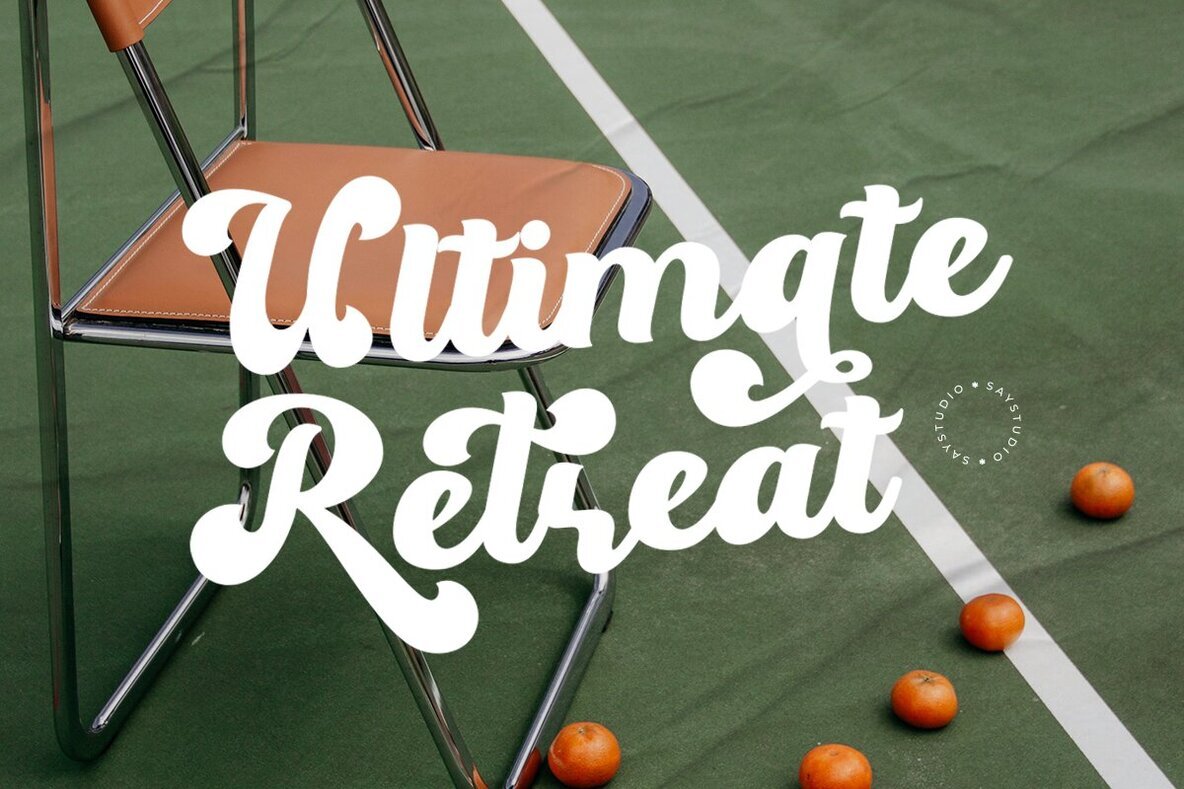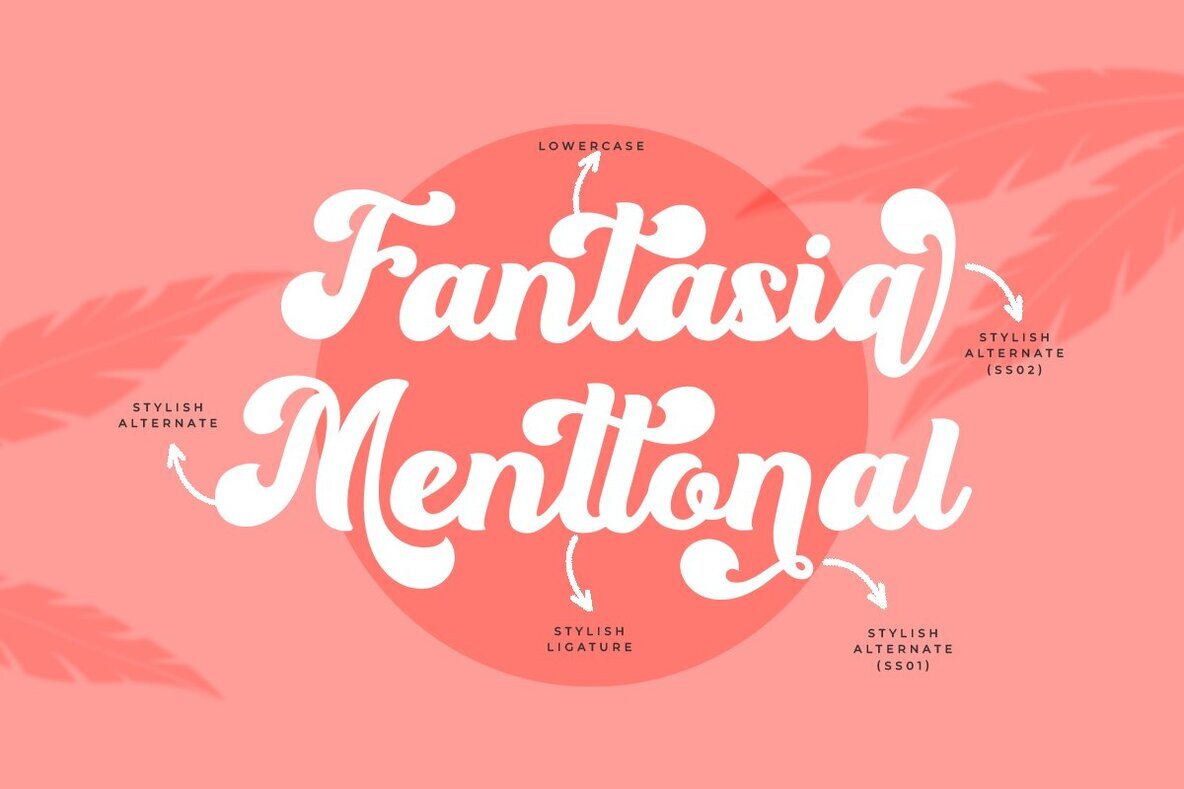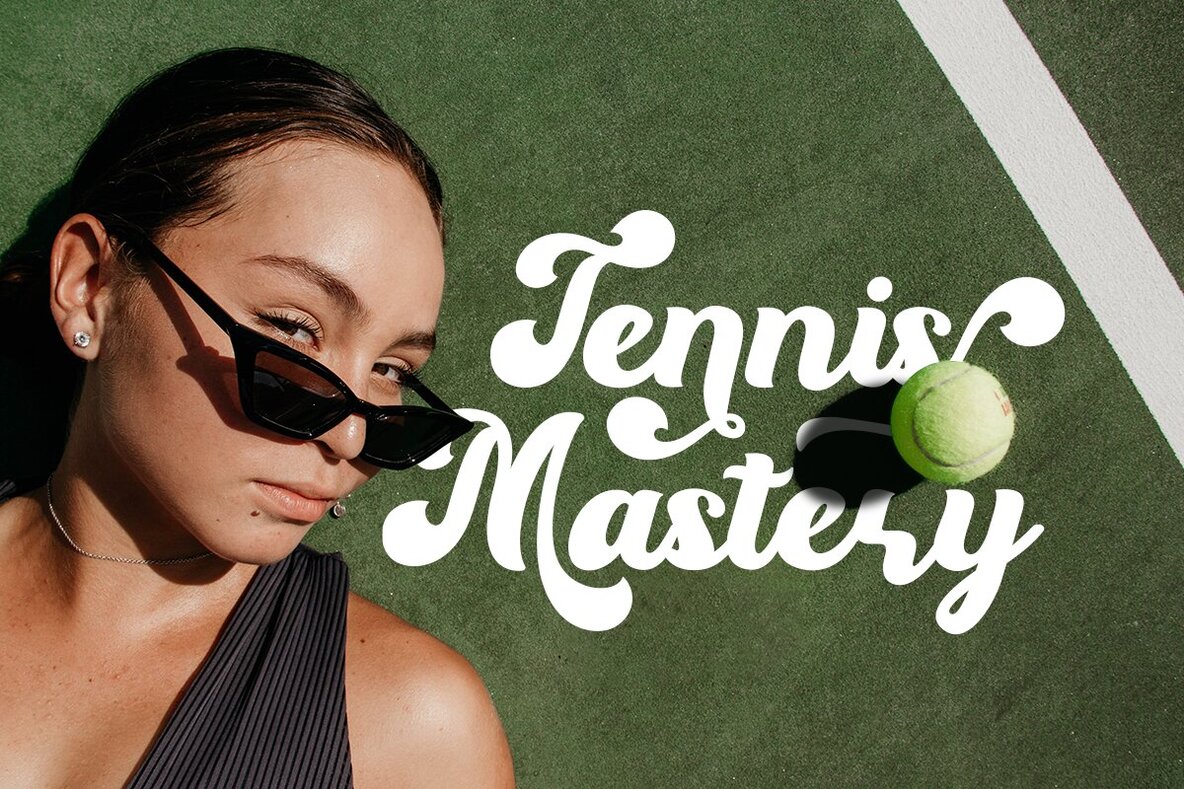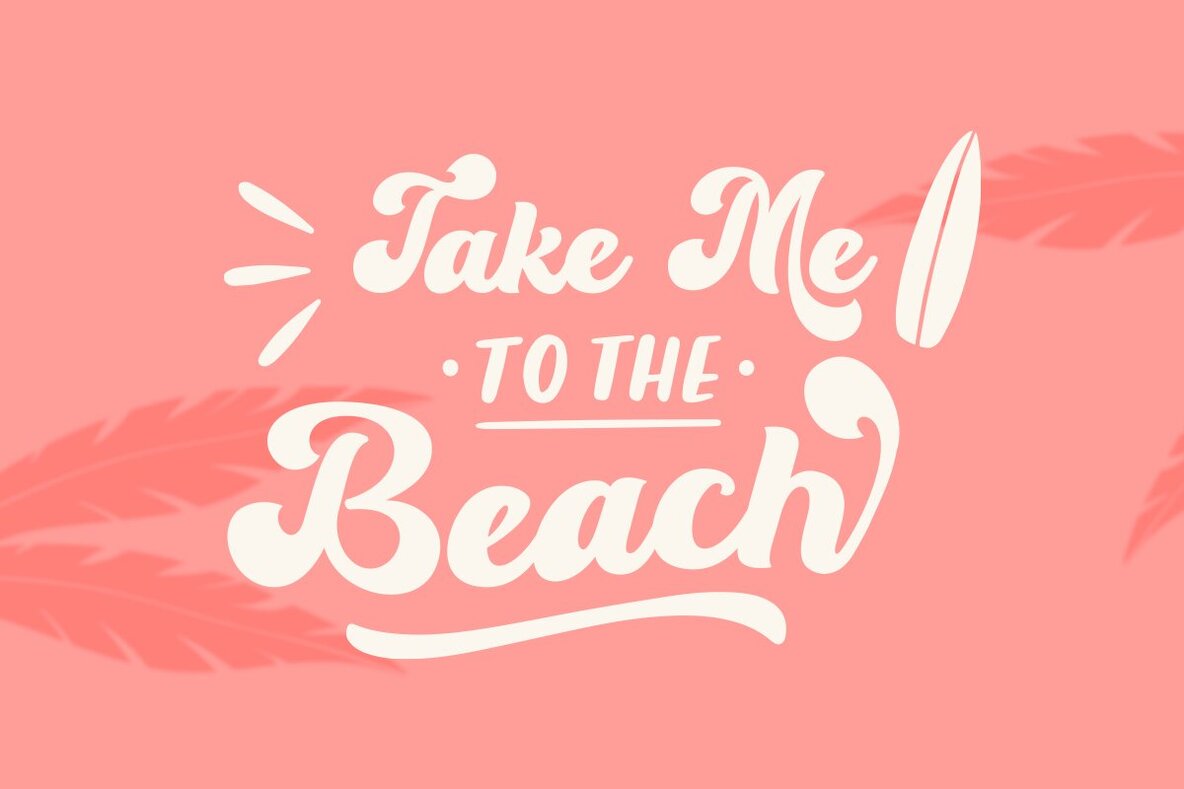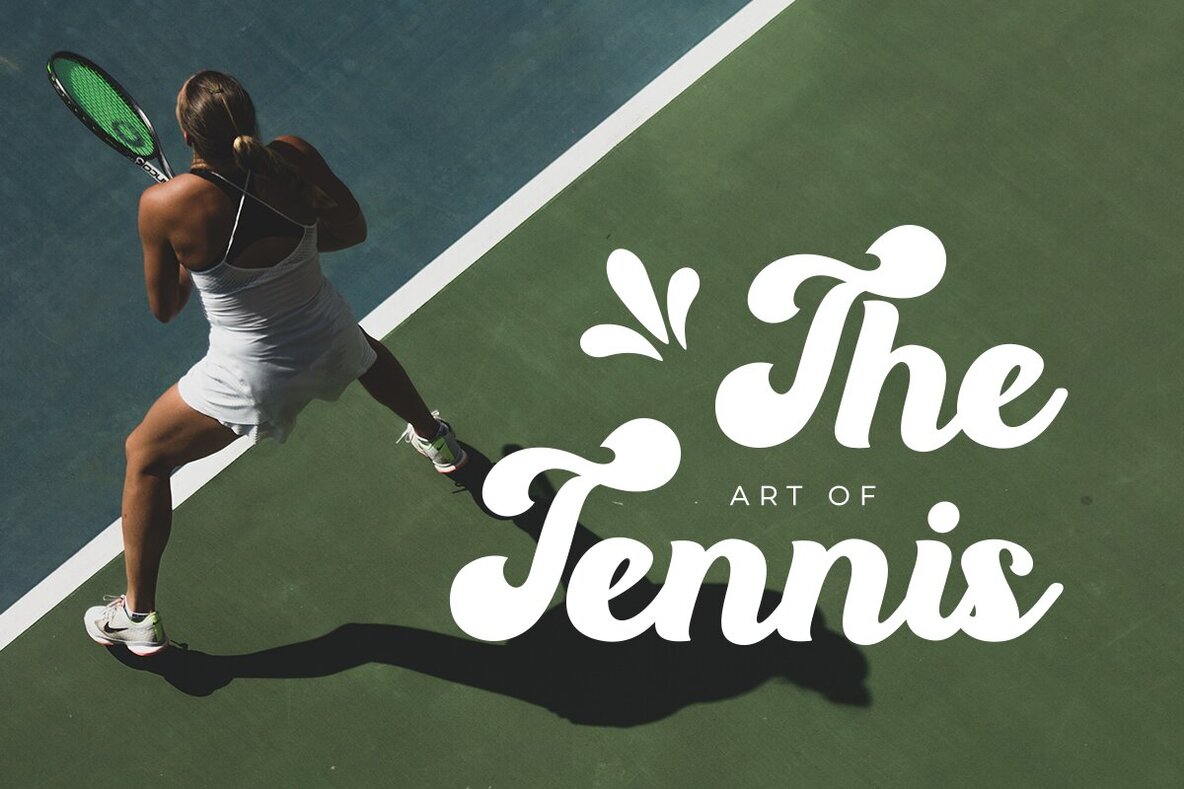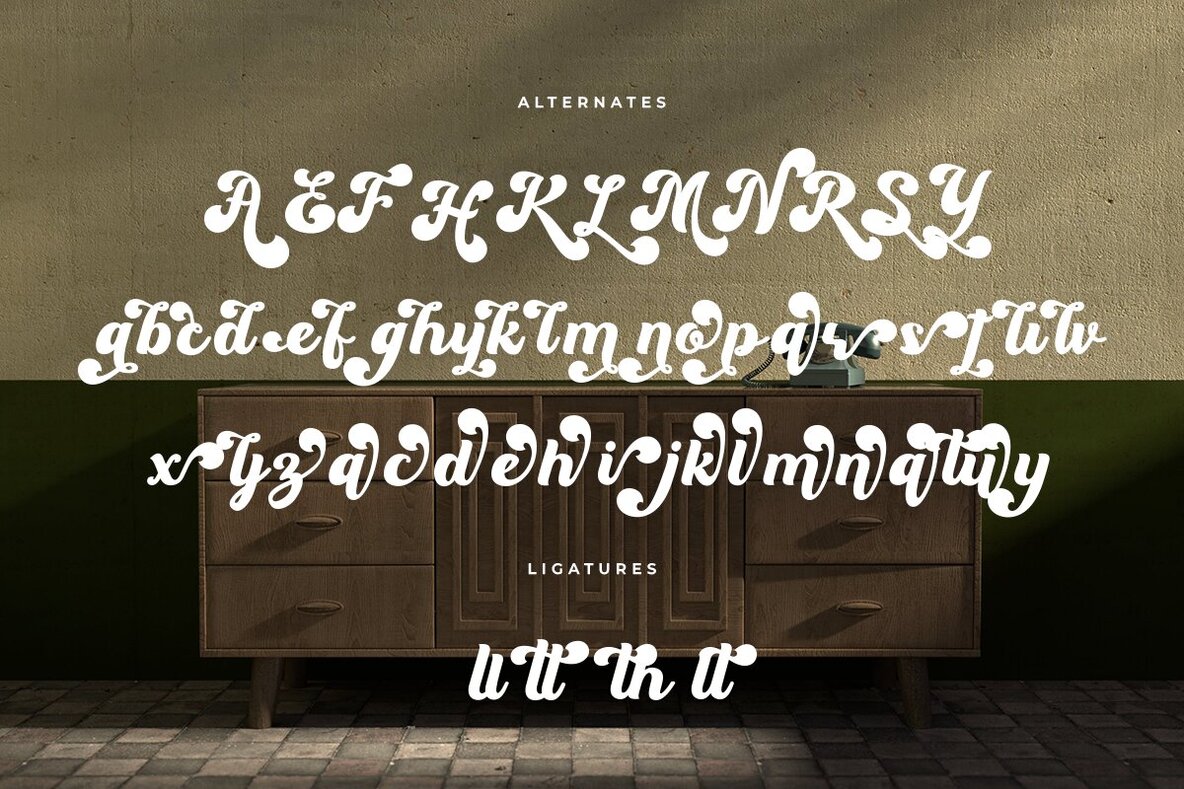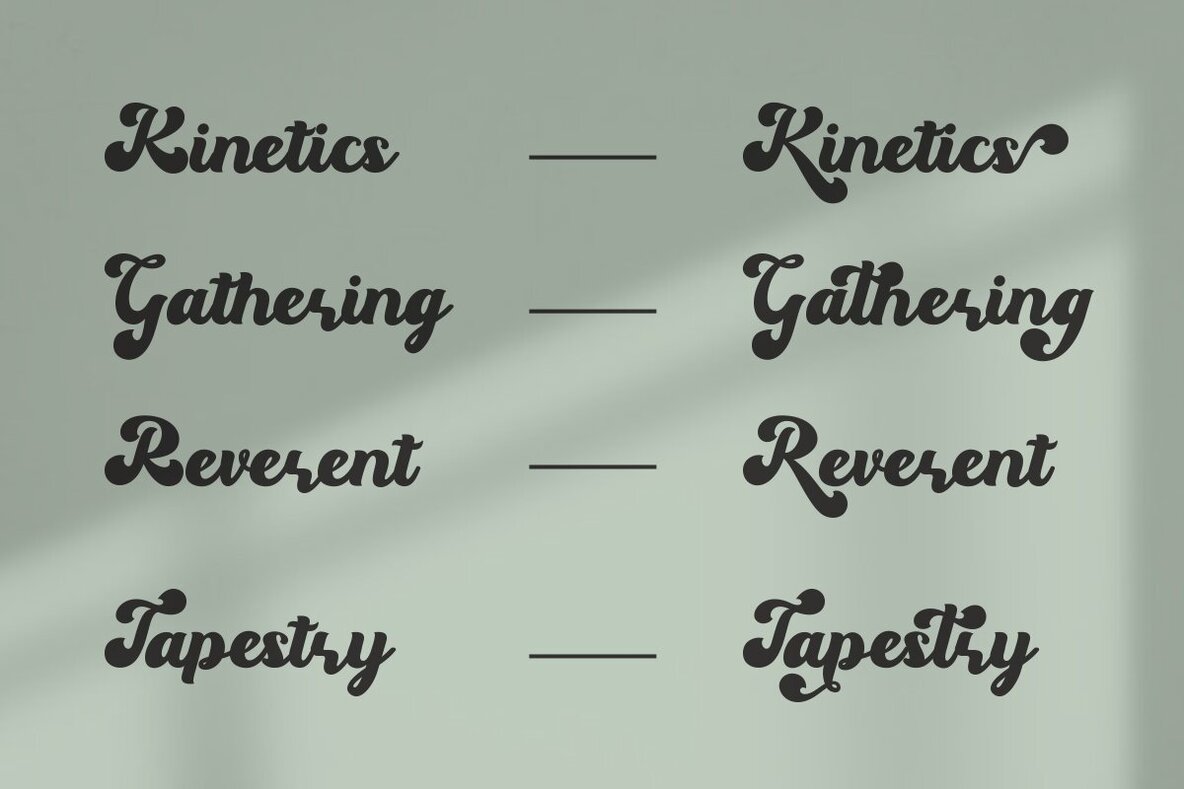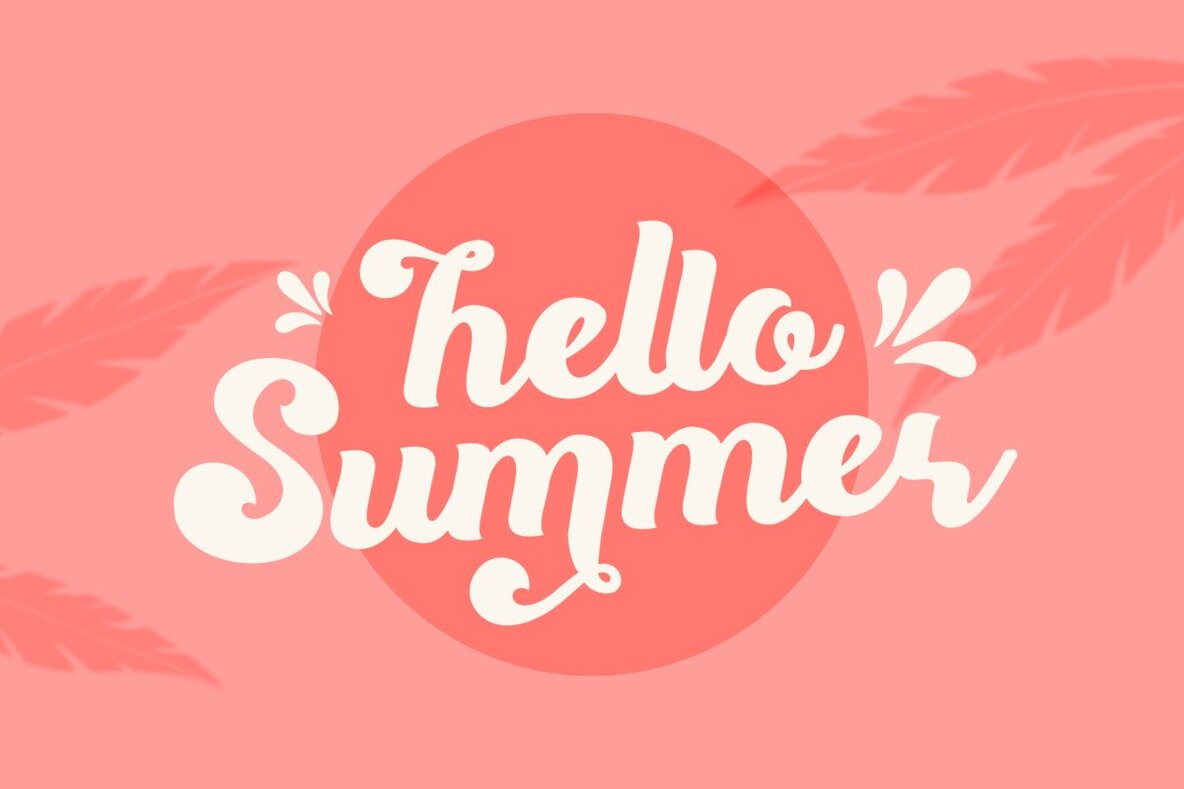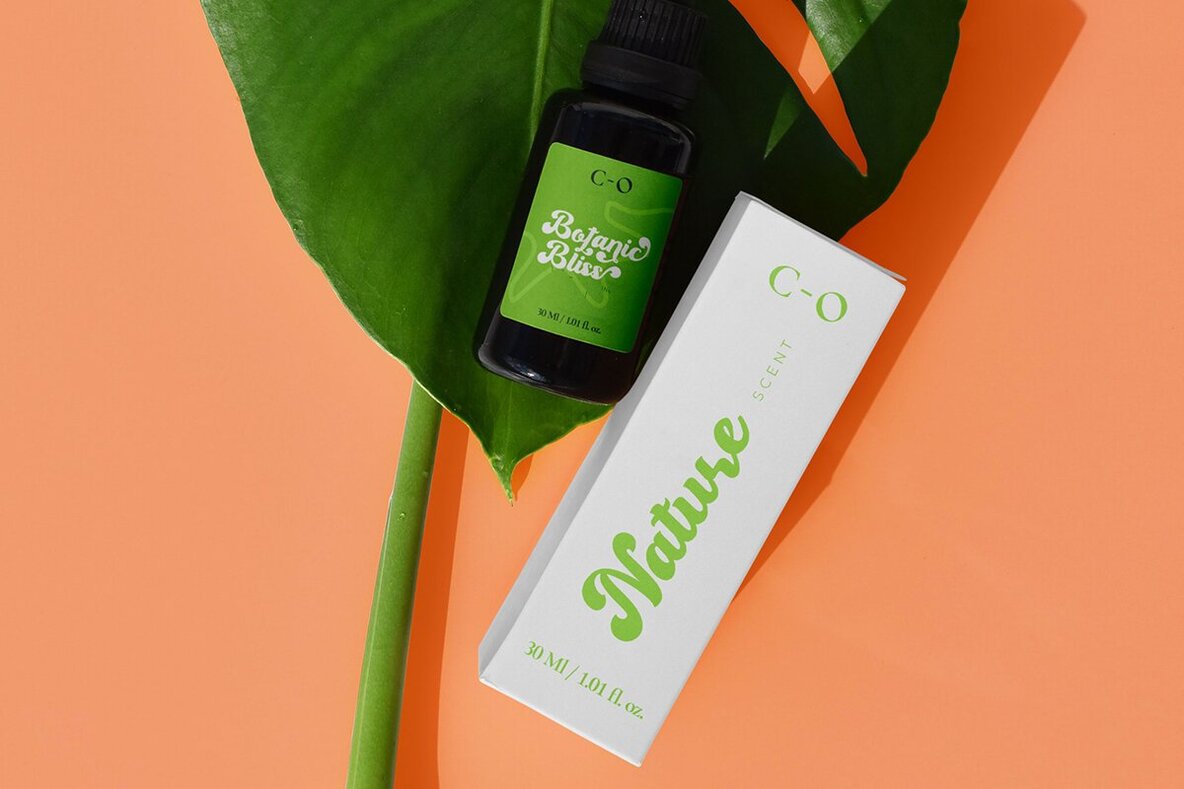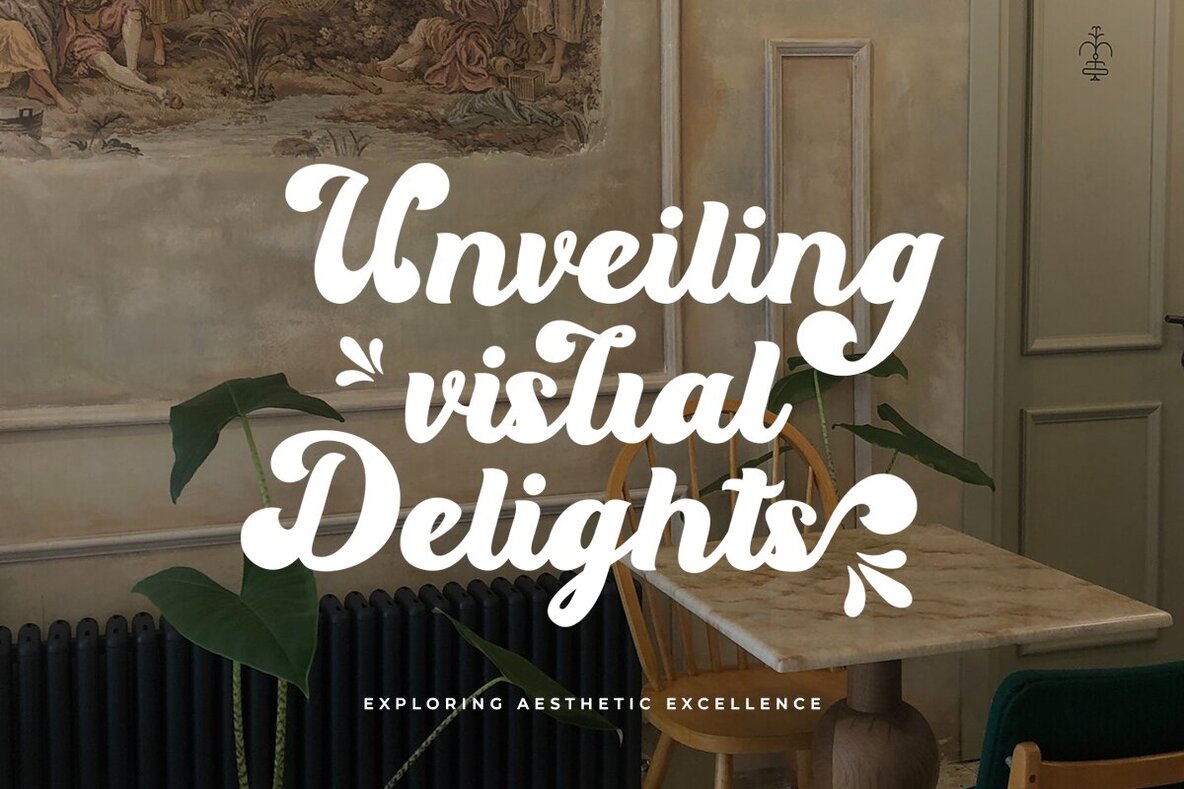
Manekin Font
Manekin Regular
Manekin is a bold script font characterized by its beautiful vintage style. This unique font offers over 40 stylistic alternates and ligatures, complemented by multi-language support, enhancing the creative possibilities for its use. Ideally suited for a wide range of creative projects, Manekin can be effectively used for logotypes, printed quotes, invitations, cards, product packaging, headers, letterhead, apparel design, web design, magazines, and books.Manekin: Bold Script Font with Vintage Elegance
Perfect for Diverse Projects